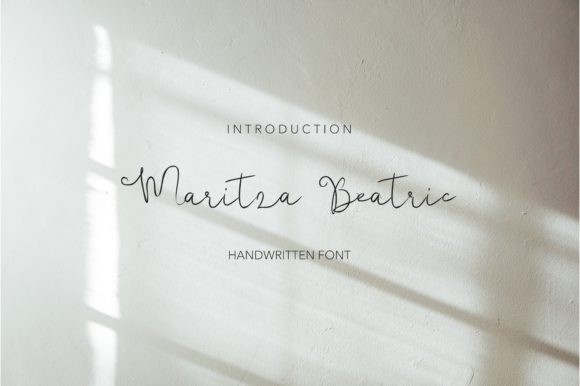
Step into the world of Maritza Beatric, a typeface that embodies the essence of romance and sophistication. Its delicate strokes and flowing curves are reminiscent of a handwritten love letter, evoking a sense of intimacy and elegance that is perfect for capturing the special moments in life.
Whether you're designing wedding invitations, creating heartfelt greeting cards, or crafting social media posts that exude grace, Maritza Beatric is the perfect font to add that touch of timeless allure. Its versatility extends beyond traditional uses, making it an excellent choice for branding, logos, and any creative project that calls for a touch of refinement.
Indulge in the beauty of Maritza Beatric, a font that transforms words into works of art. Let its elegant curves guide your designs, adding a touch of romance and sophistication that will leave a lasting impression.
But Maritza Beatric is more than just a font; it's an expression of your personal style. Its timeless beauty ensures that your creations will stand the test of time, reflecting your discerning taste and appreciation for the finer things in life.
So, why settle for ordinary when you can have extraordinary? Embrace the allure of Maritza Beatric, and let your designs bloom with elegance and grace.